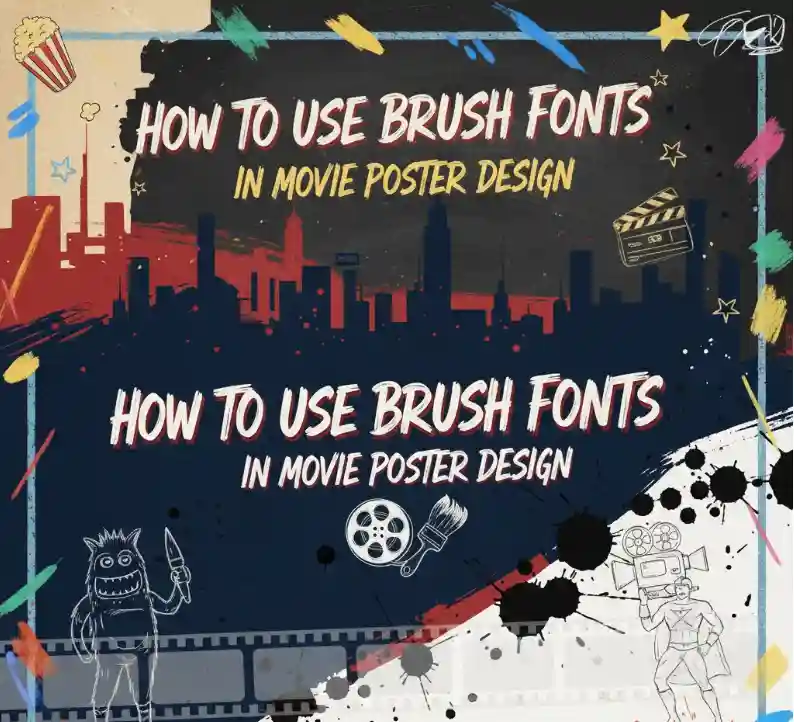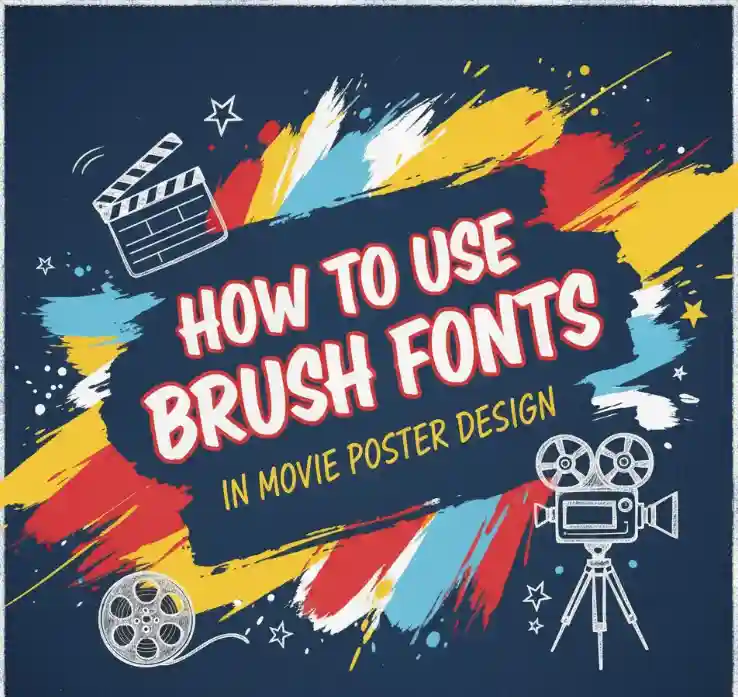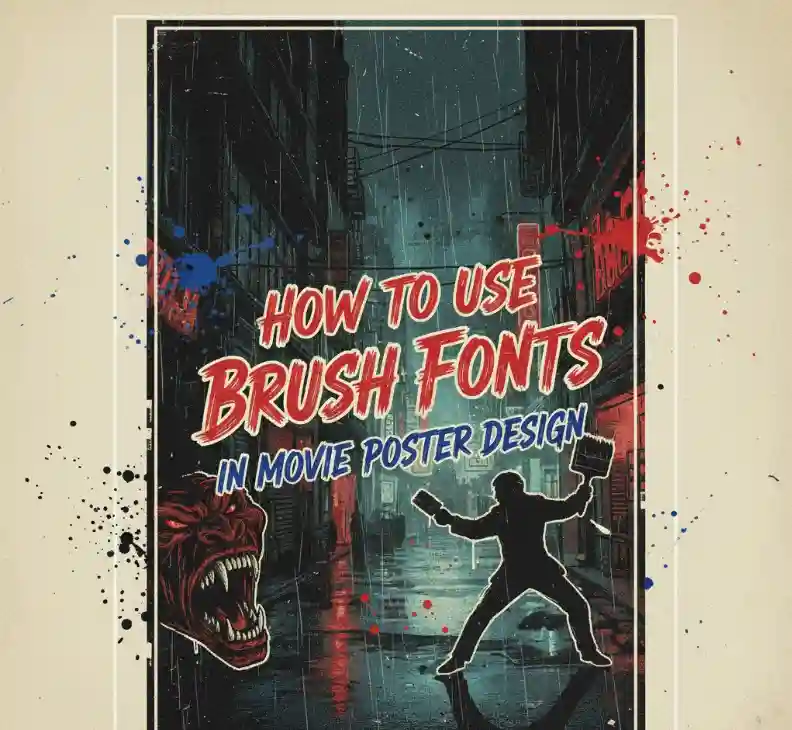
How to use brush fonts in movie poster design
1. Introduction
Movie posters are visual storytelling at its finest. They don’t just advertise films—they set the tone, spark emotion, and build anticipation. Among the most powerful design tools for achieving this cinematic feel are brush fonts.
Brush fonts combine hand-painted artistry with expressive energy, making them perfect for capturing the raw emotion behind a movie’s theme. Whether you’re designing for an action blockbuster, a heartfelt drama, or a mysterious thriller, the right brush font can make your poster unforgettable.
In this article, we’ll show you how to use brush fonts in movie poster design—including expert tips, color suggestions, and a curated list of NoahType brush fonts that can bring your creative vision to life.
2. Why Brush Fonts Work So Well in Movie Posters
Brush fonts naturally evoke emotion, movement, and authenticity. Unlike sterile geometric typefaces, brush lettering feels human—every curve and stroke carries energy and intention.
• For action films, bold and dynamic brush scripts express intensity and motion.
• In romantic movies, soft and flowing brush strokes communicate warmth and intimacy.
• For horror or thriller genres, rough textures create tension and unease.
A brush font can turn a simple title into a scene—visually hinting at what the audience can expect from the film.
3. Choosing the Right Brush Font
Selecting the right brush font for your poster depends on tone, readability, and artistic balance.
✔ Match the emotion to the genre
Your font should mirror your story’s mood. A gritty movie about survival may need a textured brush script, while a coming-of-age romance fits better with a smooth calligraphic brush.
✔ Prioritize legibility
Brush fonts are expressive, but your title still needs to be readable at a distance—especially for billboards or digital thumbnails.
✔ Keep it consistent
Don’t mix too many brush styles. Choose one dominant font for the title, and pair it with simple sans-serifs for taglines and credits.
4. Color, Contrast, and Composition Tips
Once you’ve chosen your brush font, the next step is to make it pop within your layout.
• Contrast is key. Use high-contrast colors between your text and background. A dark brush font on a bright sky, or a light font over a moody shadow, can instantly add cinematic depth.
• Think in layers. Apply soft shadows or textured overlays to integrate your text into the scene.
• Use lighting cues. Align your font placement with natural light direction in your imagery—it helps make the title look part of the poster, not pasted on top.
• Limit your palette. Two or three dominant colors are enough; overuse can distract from your typography.
Brush fonts thrive in visual simplicity—they carry so much character that they don’t need extra decoration.
Here are five handpicked brush fonts from NoahType that bring cinematic impact to any movie poster design:
🎬 Baseliner Font
A sporty, bold brush script inspired by vintage baseball typography. Its sweeping strokes and strong motion make it ideal for drama, adventure, or sports-themed films. The organic texture adds energy without sacrificing readability.
🎨 Allston Font
This elegant brush signature font combines smooth curves with authentic pressure variation—perfect for romantic dramas, biopics, or art films. Its natural handwritten feel adds sincerity and warmth to the poster.
🔥 Visualist Font
A bold, expressive brush font with vintage personality. Great for retro, action, or thriller posters. Its rugged edges and confident strokes make any title instantly cinematic.
🌌 Sanpedro Font
Textured and slightly rough, this font radiates a modern rebellious vibe—ideal for crime, street culture, or dystopian movie themes. The Sanpedro Font adds attitude and boldness to your visual design.
💀 Hareback Font
Gritty and powerful, this brush font screams intensity. With rough dry-brush texture and heavy strokes, it’s perfect for horror, dark fantasy, or apocalyptic movies that need a raw and distressed feel.
7. Final Thoughts
Brush fonts are more than typefaces—they are visual emotions in motion. A well-chosen brush font can make a movie poster come alive, giving viewers an immediate sense of tone and style before they even read the tagline.